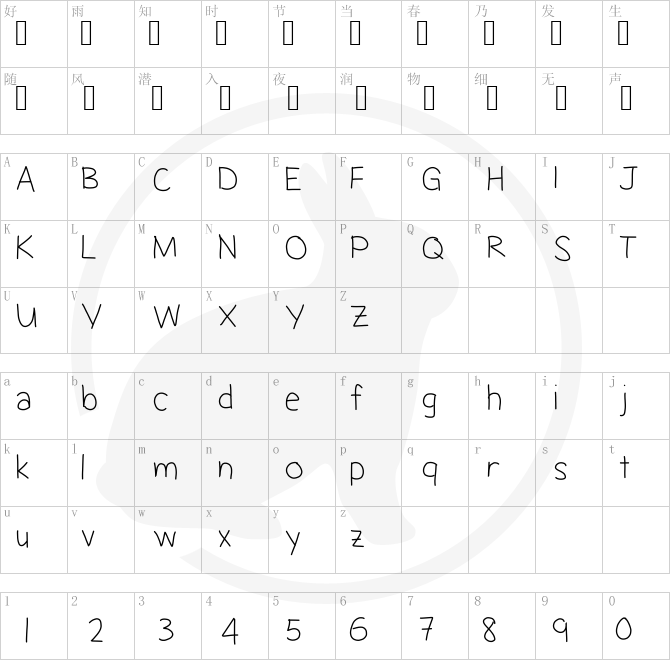
- Font Name:Jacquelyn's Messy Hand
Jacquelyn-s-Messy-Hand.ttf is a very beautiful artistic font, Jacquelyn-s-Messy-Hand.ttf is widely used in the design and printing of various books and pictures,Jacquelyn-s-Messy-Hand.ttf has a strong visual impact,Jacquelyn-s-Messy-Hand.ttf is a commonly used font in newspapers, magazines and books, and is used in posters, e-commerce Poster design, store design, logo design, font design and other fields.Jacquelyn-s-Messy-Hand.